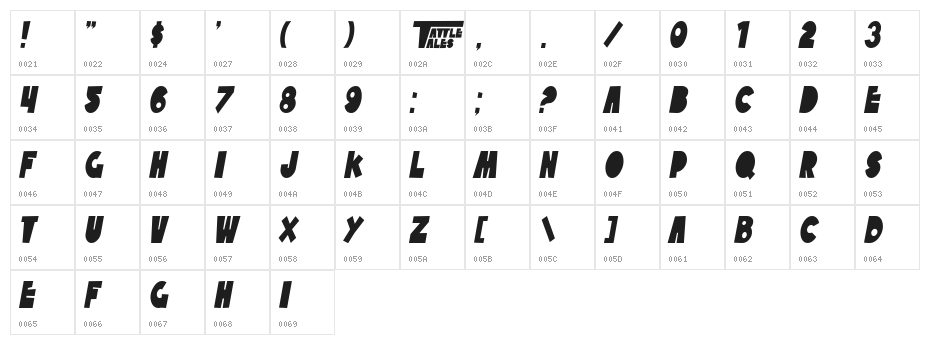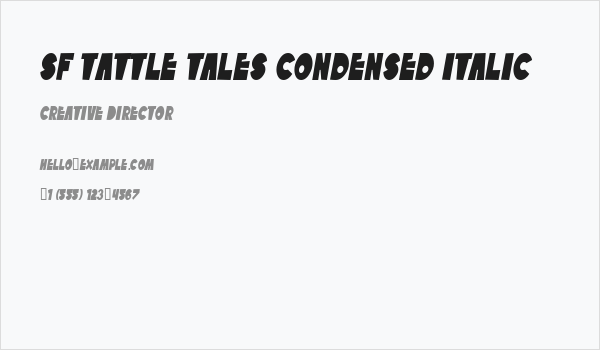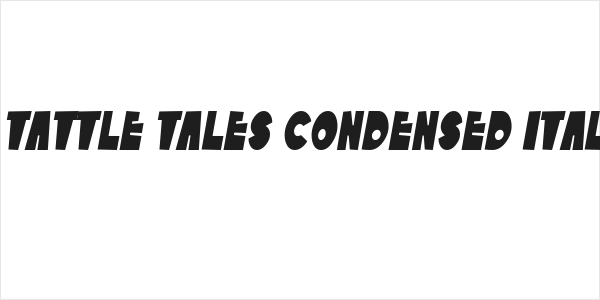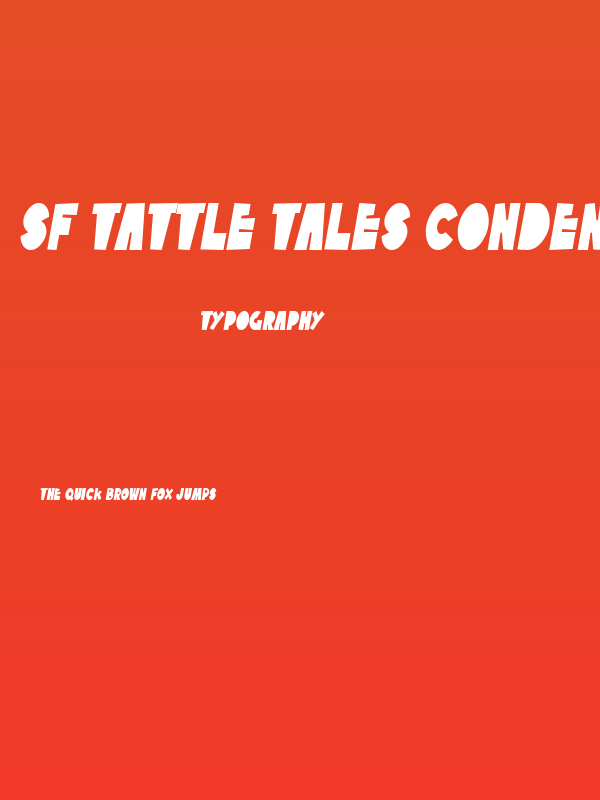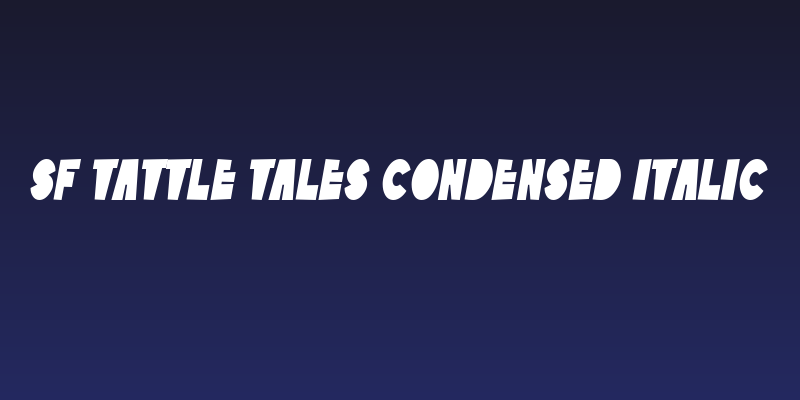
SF Tattle Tales Condensed Italic Font
SF Tattle Tales Condensed Italic Description
This font features a bold and dynamic style with a condensed and italicized form. The characters are designed with sharp angles and a strong presence, making them highly visible and impactful. The uppercase and lowercase letters maintain a consistent slant, enhancing the italic effect. The numbers are equally bold, ensuring they stand out in any context. Special characters are included, adding versatility to the font. The overall design is modern and eye-catching, suitable for projects that require a strong visual statement.
| Proposed Projects | Ideal for headlines, posters, branding, and any project that requires a bold and impactful typeface. |